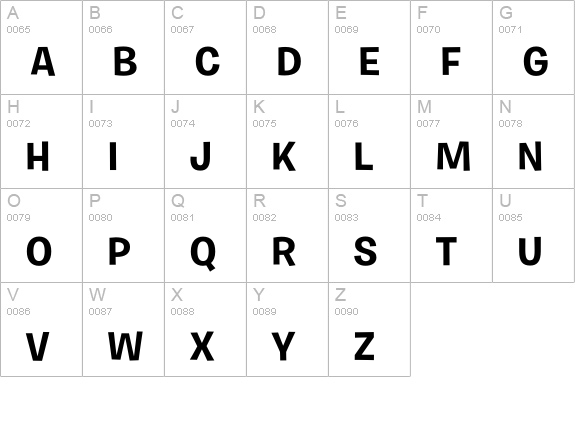
Burbank Small Bold is a strong, high-contrast variant in the Burbank typeface family \xE2\x80\x94 well suited to headlines, attention-grabbing titles, and strong calls-to-action.
Burbank Small Bold is a modern and stylish font that exudes confidence and sophistication. Its bold and sleek design makes it perfect for a wide range of projects, from branding and advertising to packaging and web design. This versatile font is ideal for creating eye-catching headlines and titles that demand attention. What sets Burbank Small Bold apart is its seamless blend of elegance and strength, making it a standout choice for any design project. Whether you're looking to make a bold statement or add a touch of sophistication to your work, this font is sure to impress. Best of all, Burbank Small Bold is available for free download at FontsMarket.com. So you can add this stylish font to your collection without breaking the bank. Don't miss out on the opportunity to elevate your designs with Burbank Small Bold – download it today and see the difference it can make!